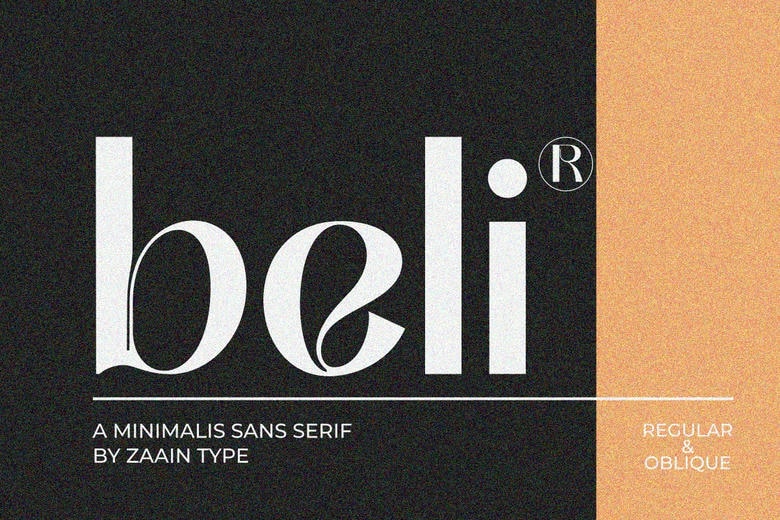
Beli Font
Beli is a modern sans serif font that combines simplicity with a refined style. Its clean lines and balanced proportions give it a versatile look that feels contemporary and welcoming.
Beli stays easy to read in both headlines and body text, while still looking polished. It is a great option for designers who want a timeless sans serif with a fresh, confident feel.